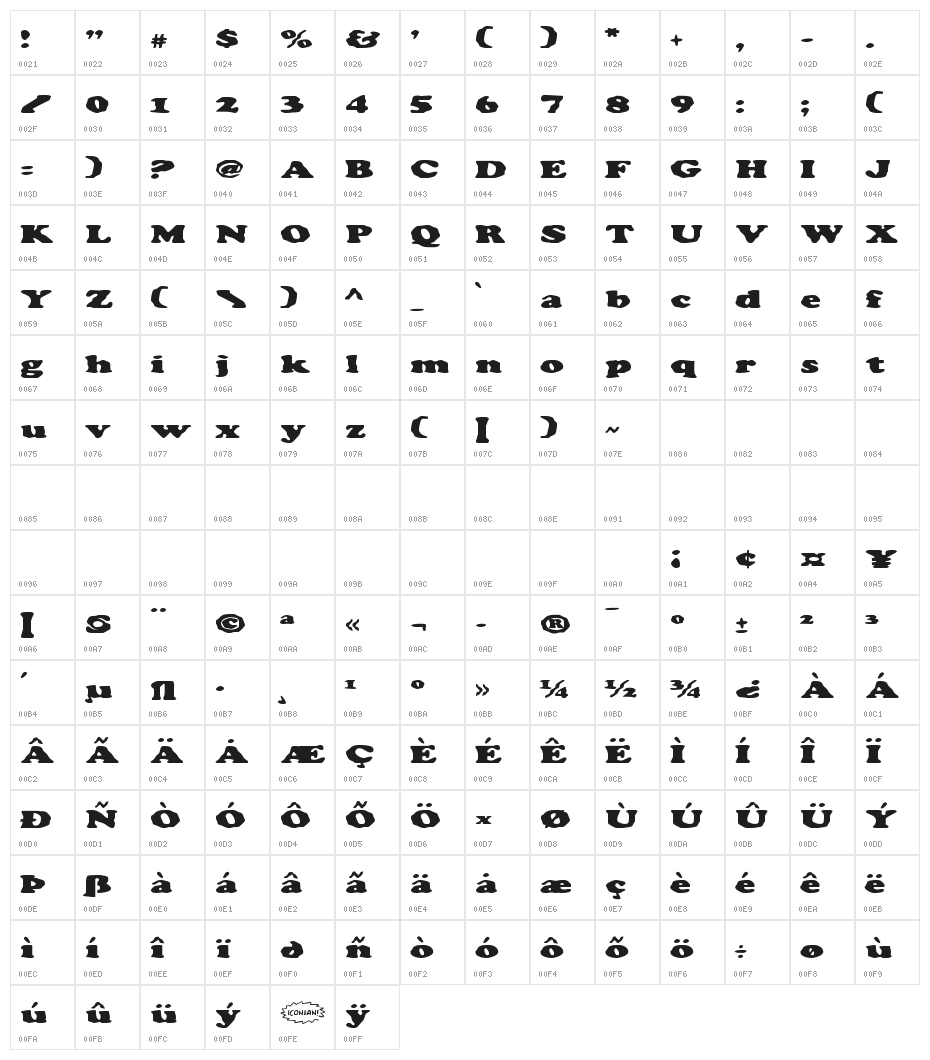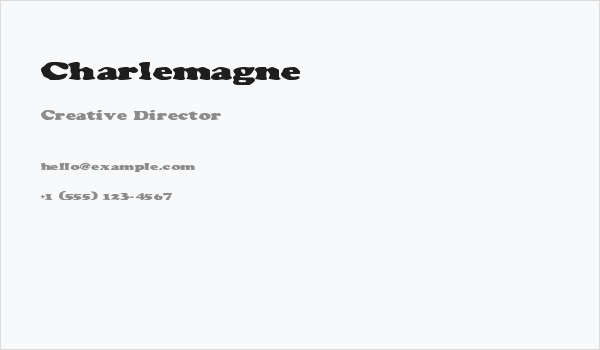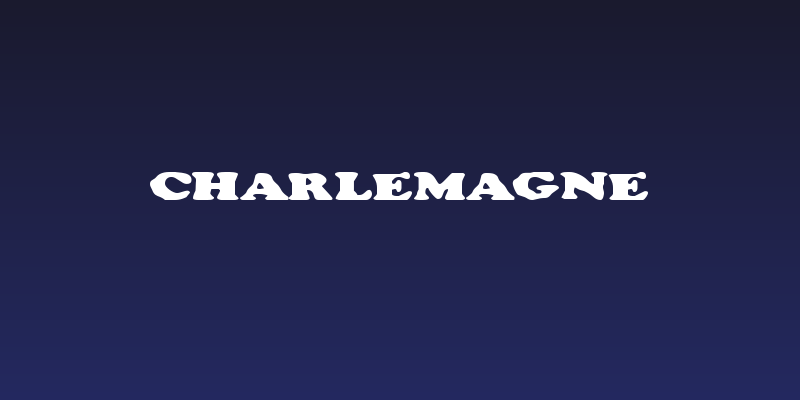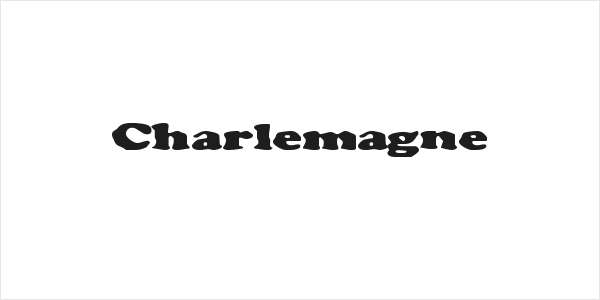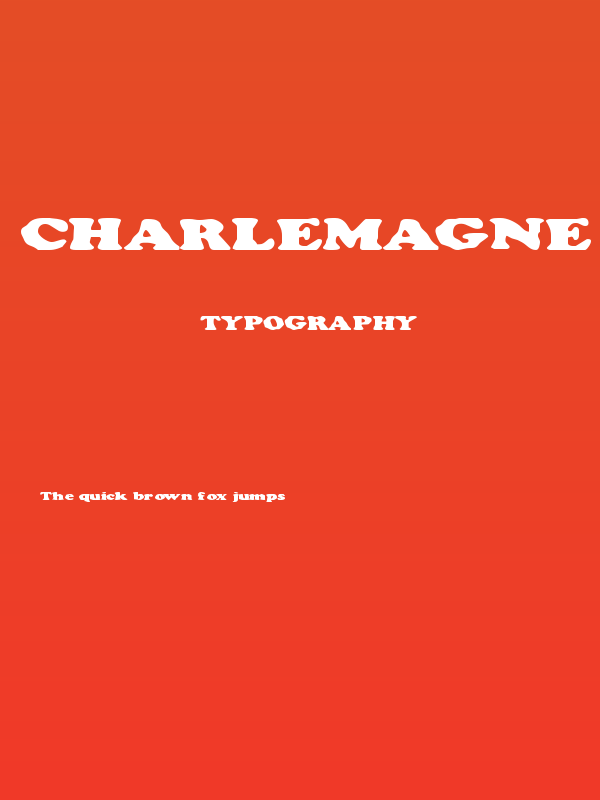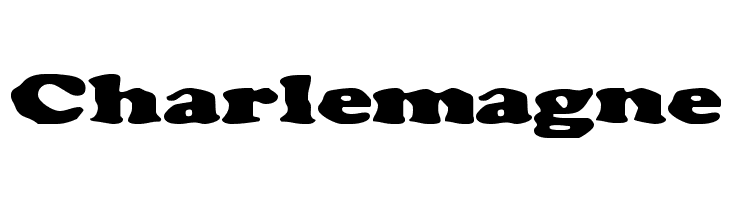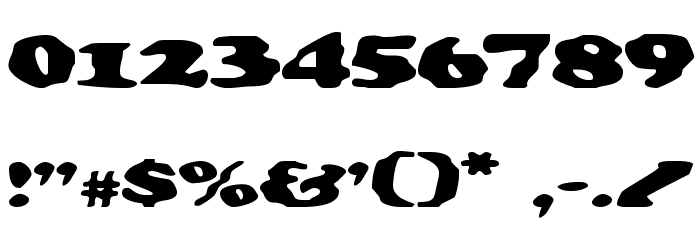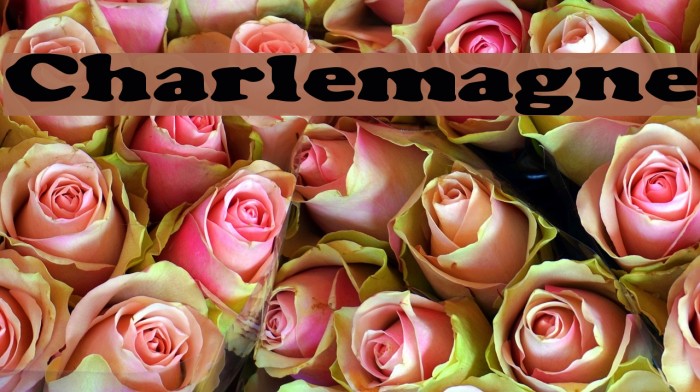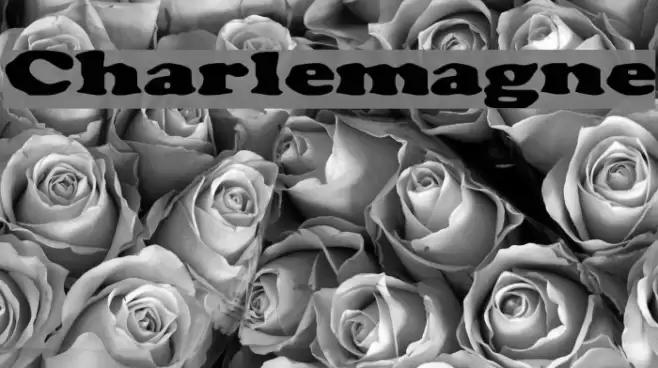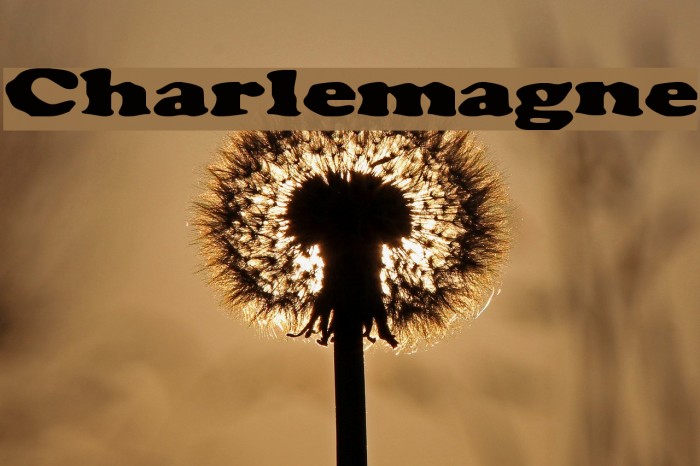
Charlemagne Font
This font features a bold and dramatic style with a strong presence. The characters are thick and robust, with a slightly irregular shape that gives them a hand-carved appearance. The uppercase letters are particularly striking, with a sense of grandeur and authority. The lowercase letters maintain the same boldness, ensuring consistency across the typeface. Numbers and special characters follow the same design principles, making them easily recognizable and cohesive with the rest of the font. The overall impression is one of strength and impact, suitable for making a statement.
| Proposed Projects | Ideal for use in headlines, posters, branding materials, and any project requiring a bold statement. |